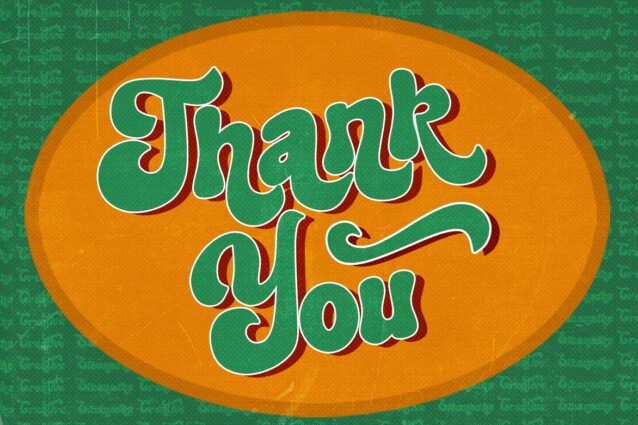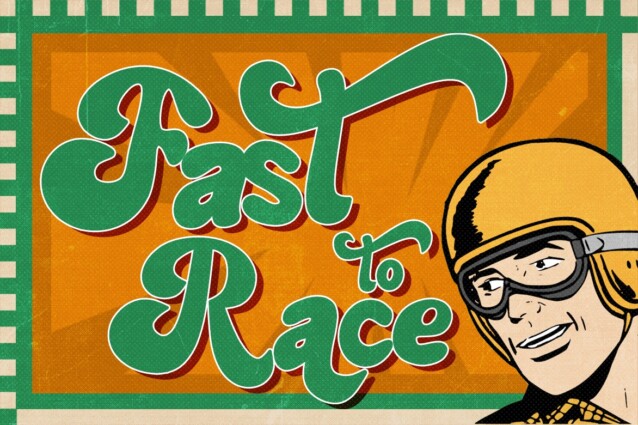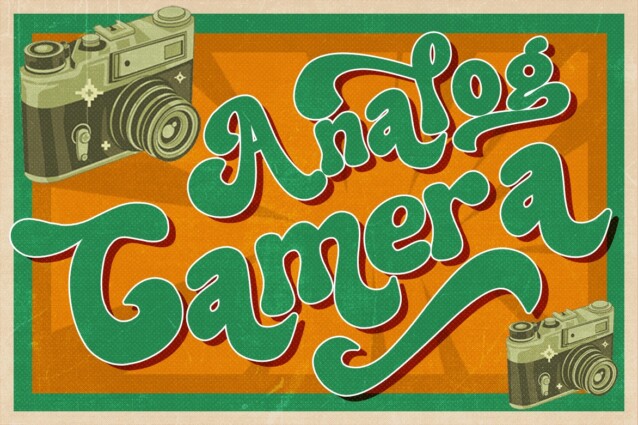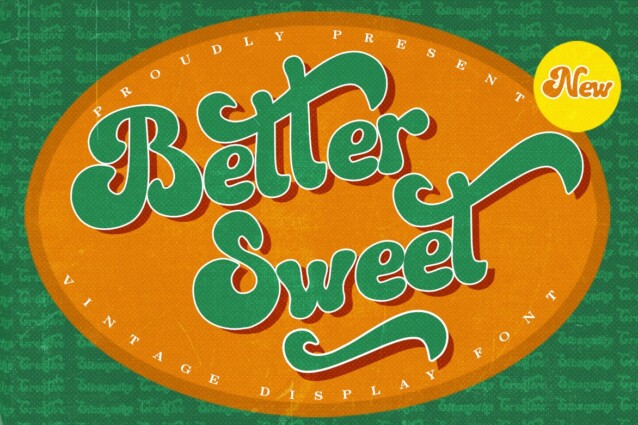
Better Sweet Font
Better Sweet Font is retro serif in cute touch, suitable for any projects such as: logos, branding projects, homeware designs, product packaging, mugs, quotes, posters, shopping bags, t-shirts, book covers, name card, invitation cards, greeting cards, label, photography, watermark, special events, and all your other lovely projects that need a beautiful taste.